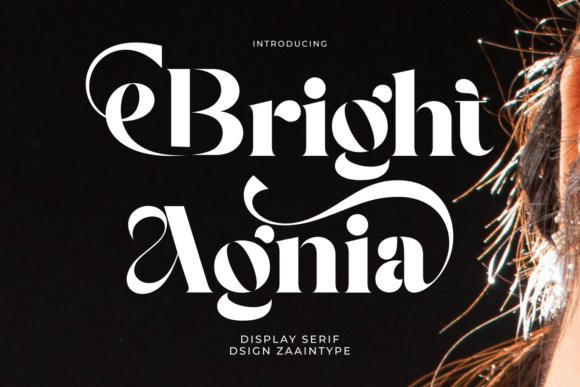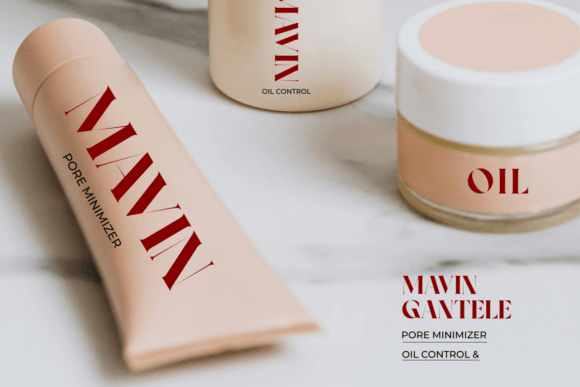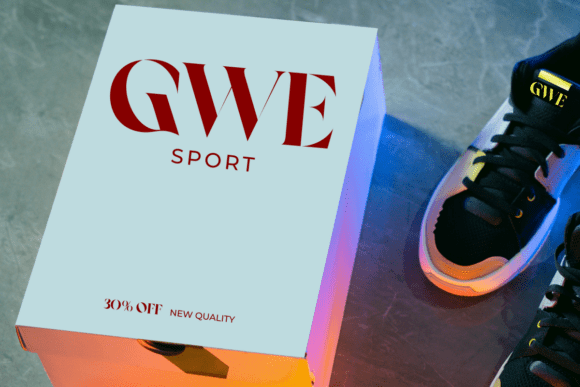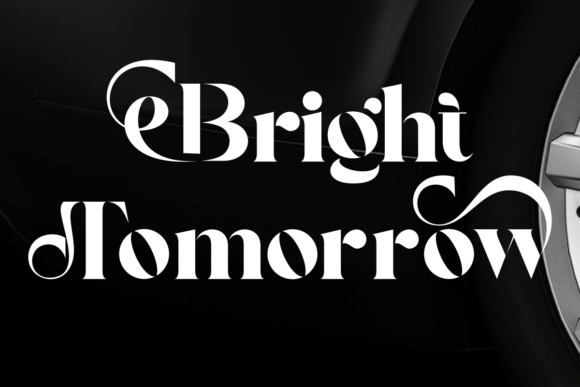
Bright Agnia Font: Elegant Serif Typography for Modern Branding
About the Bright Agnia Font
Introducing the Bright Agnia Font, a beautifully crafted typeface designed to elevate your creative projects. Bright Agnia is a serif font that blends traditional elegance with a dynamic modern feel. With balanced proportions and refined serif details, this font delivers a luxurious, professional, and highly distinctive look.
Available in two styles:
Regular – A classic and elegant appearance, perfect for body text, editorials, and branding.
Oblique – A slanted version that adds a bold and dynamic touch, ideal for more expressive designs
Bright Agnia’s Regular style excels in branding applications, particularly logos and short headlines, where its refined elegance shines. It also works well in editorial design for titles and short text blocks. However, its serifed nature and relatively high x-height make it less suitable for lengthy body copy or UI elements. The Oblique style is best suited for impactful headlines, posters, and packaging design, adding a touch of dynamism and luxury.
Avoid using Bright Agnia for website body text or lengthy documents. Its elegance can be lost in large blocks of text, and readability may suffer. For UI, a more legible sans-serif font is recommended.
Pair Bright Agnia Regular with a clean sans-serif like Montserrat for a balanced contrast, or with a geometric sans-serif like Futura for a more modern feel. The Oblique style pairs well with a playful script font like Pacifico for a stylish yet approachable combination, or with a strong, neutral sans-serif such as Open Sans for a sophisticated contrast. Overall, Bright Agnia projects a sophisticated, yet approachable, modern elegance.
Bright Agnia Font Usage Examples
Bright Agnia Font Example